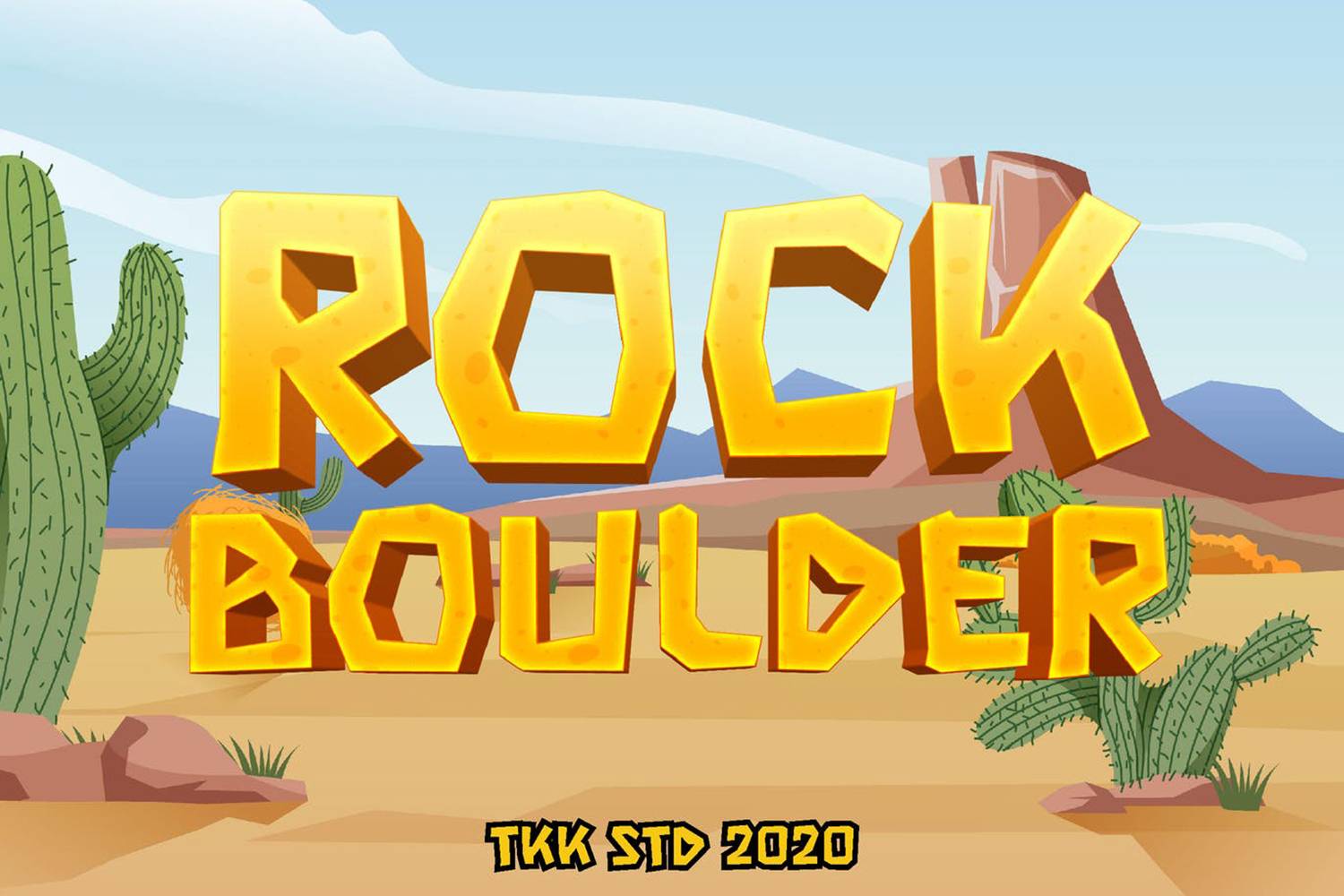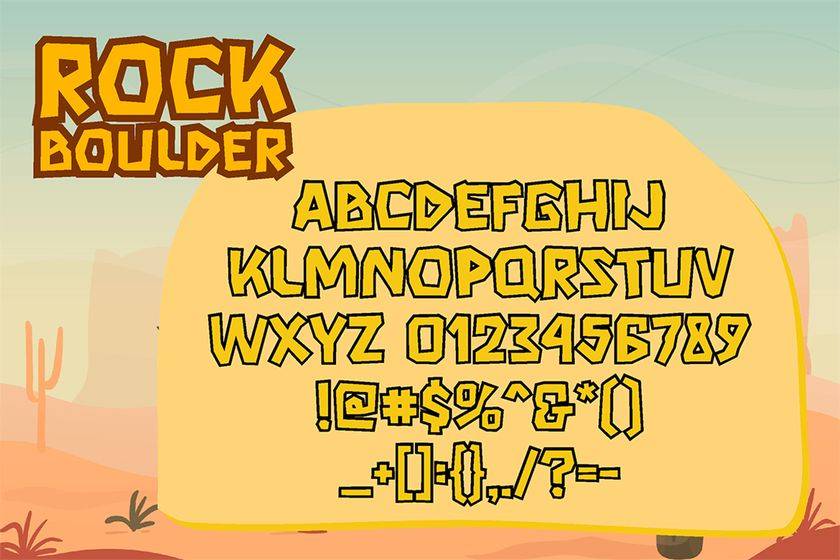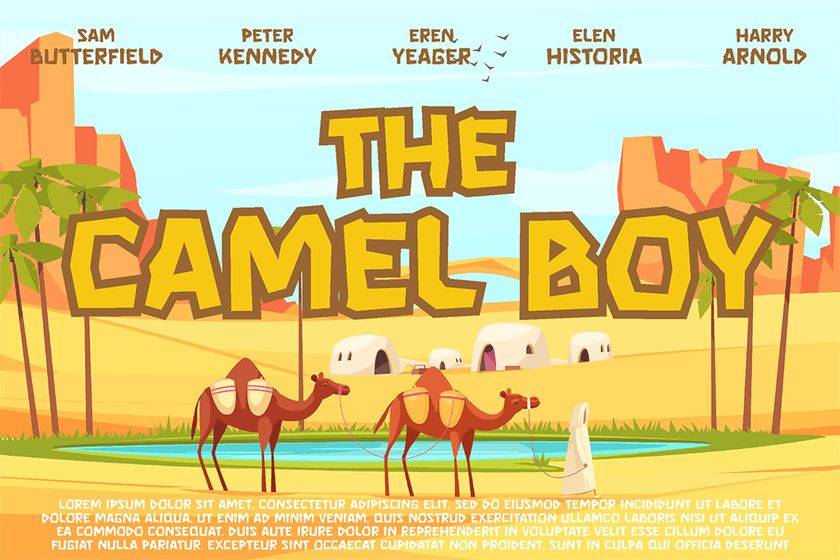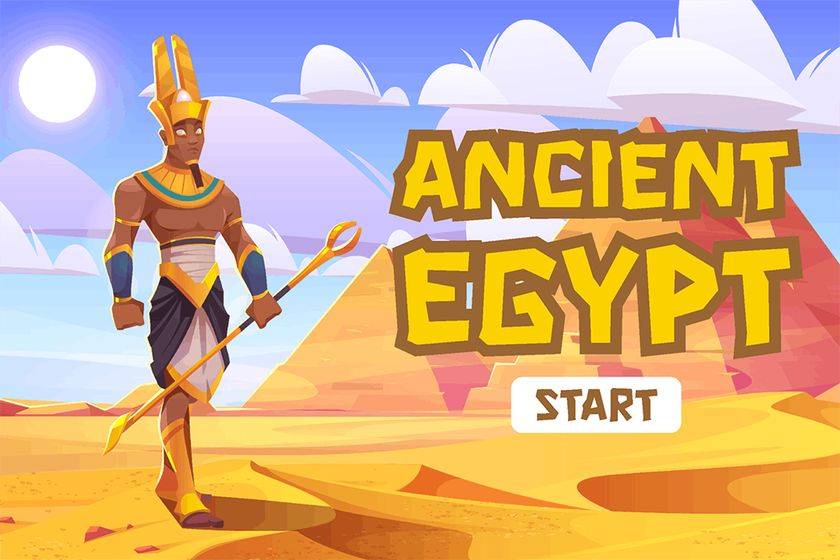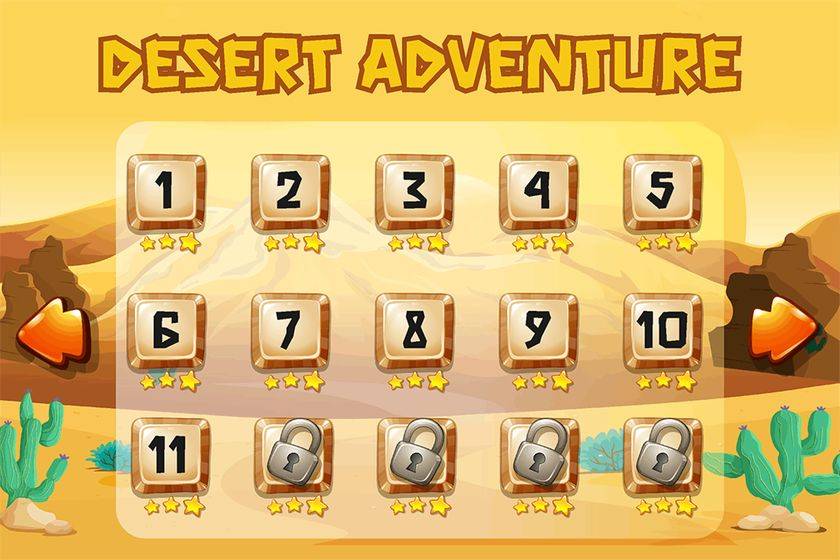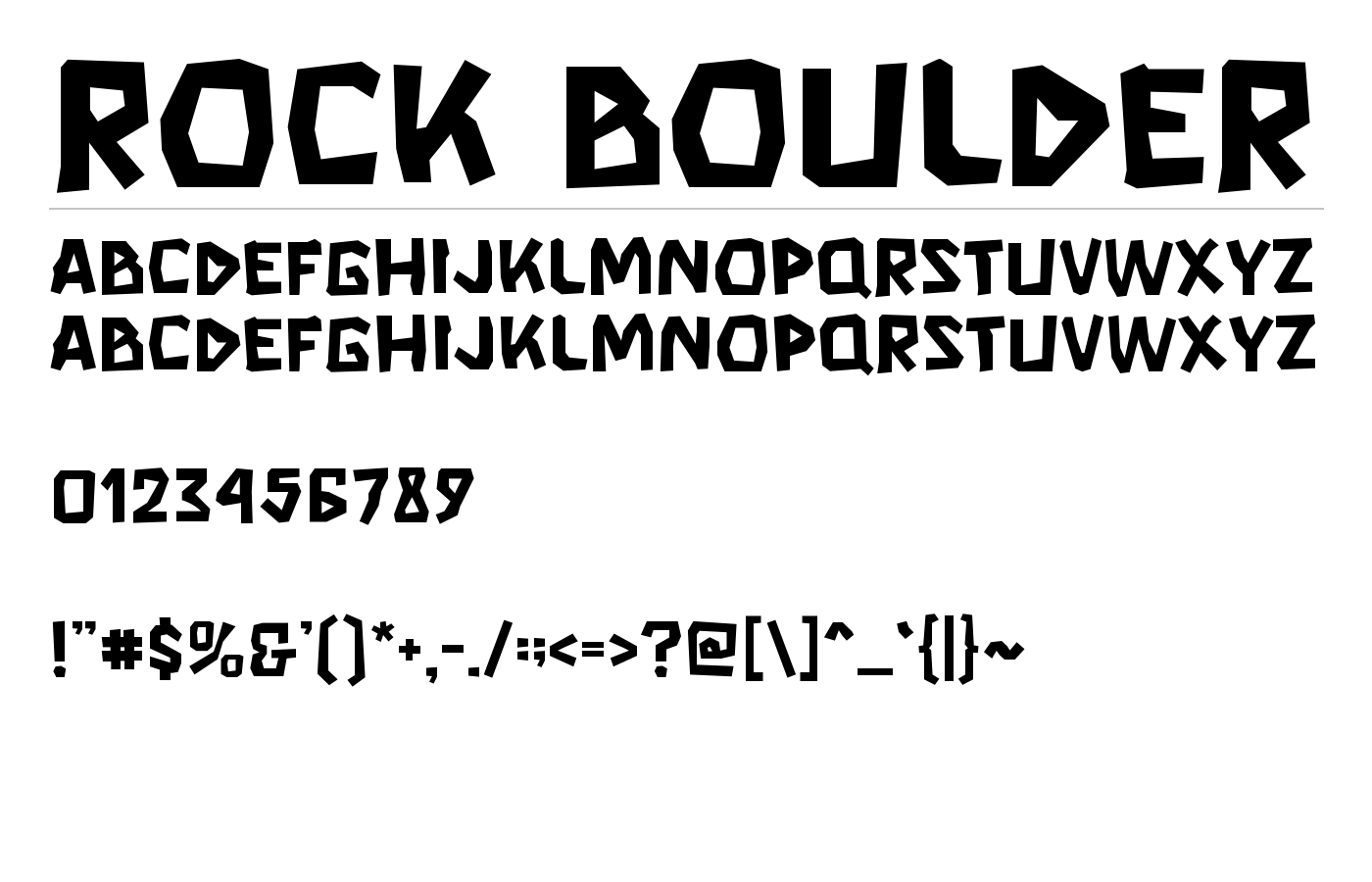
Rock Boulder is a bold, angular sans serif font with a playful and rugged character, featuring sharp, uneven edges that evoke a hand-cut stone or rock-like texture. Its strong, irregular shapes make it ideal for eye-catching headlines, logos, or designs that aim to convey an adventurous, fun, and energetic vibe. This font works well for projects needing a distinctive, informal style that stands out with a natural, crafted feel.
Rock Boulder Font
About Rock Boulder Font